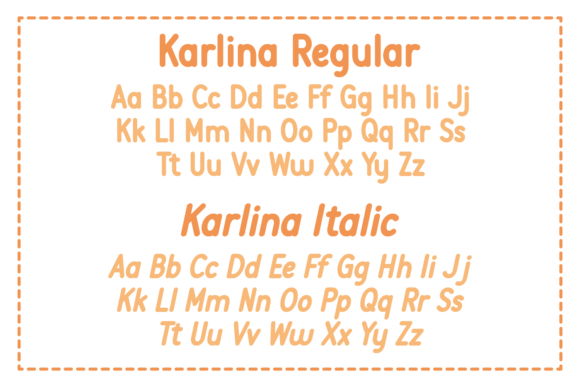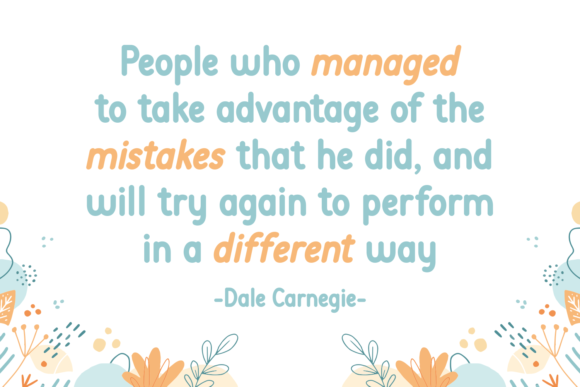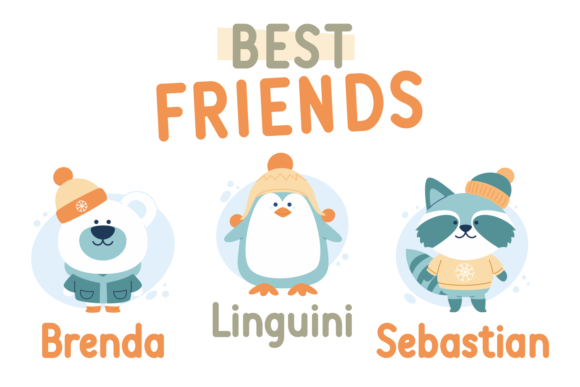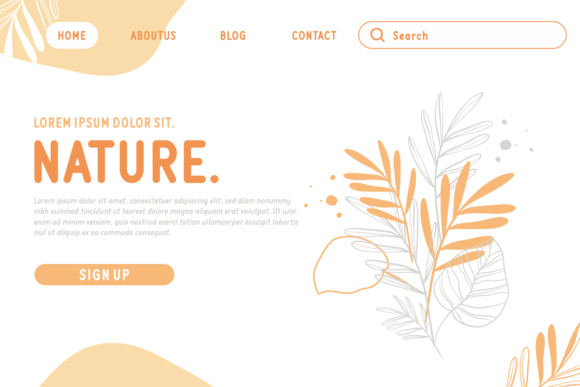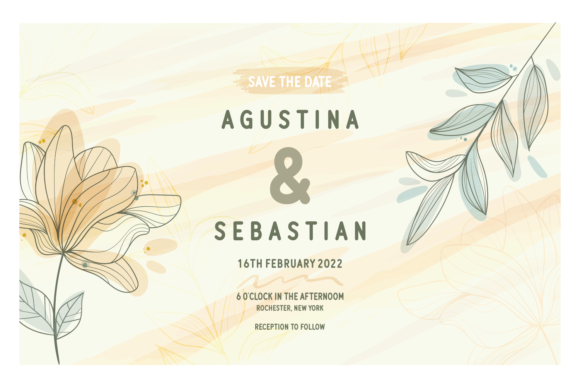
Karlina Font
About Karlina Font
Karlina is a unique and elegant handwritten font. It looks adaptable on a variety of designs requiring a personalized style, such as wedding invitations, thank you cards, weddings, greeting cards, logos and so on.